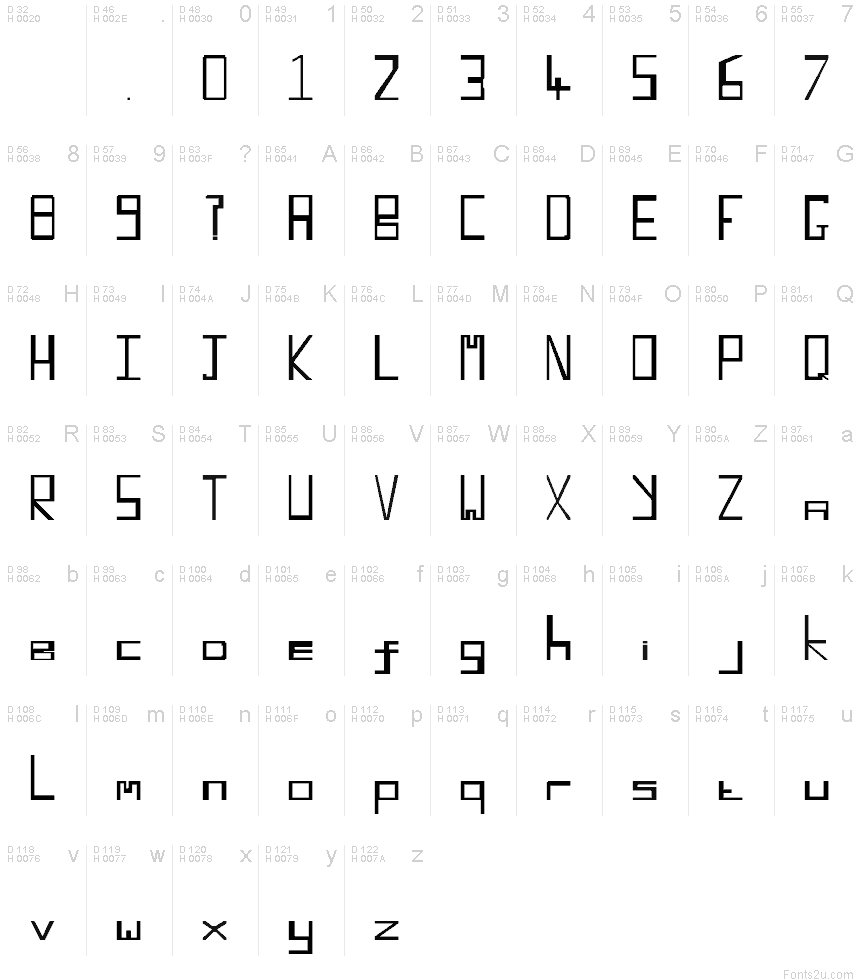
Retro Blocky
This was inspired by old games. It's the first font I've created that I wanted to have a retro feel to it. It is a skinny font and has very sharp edges.